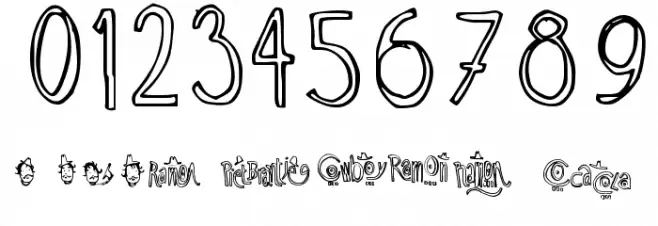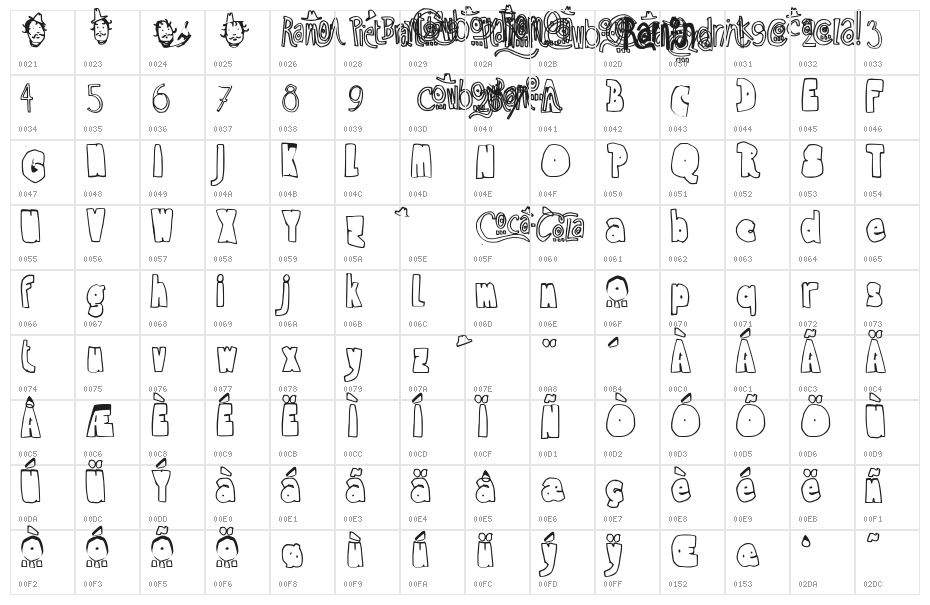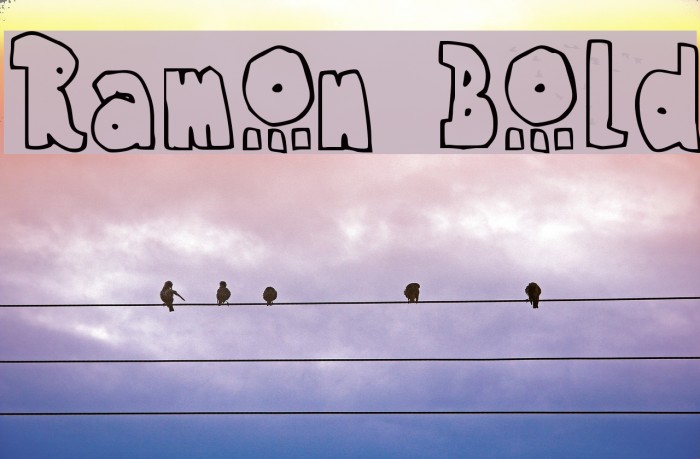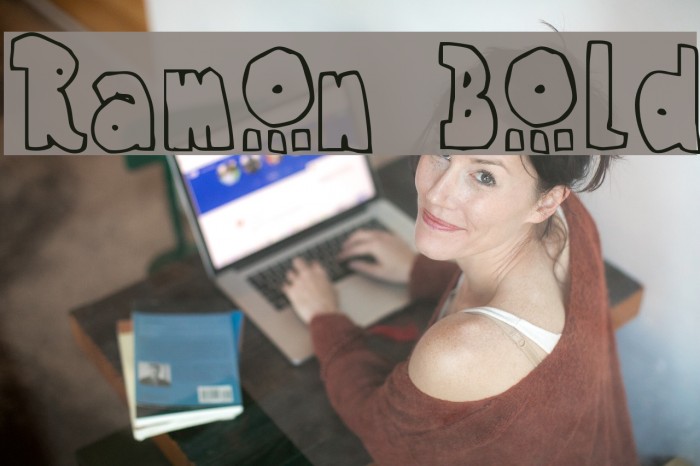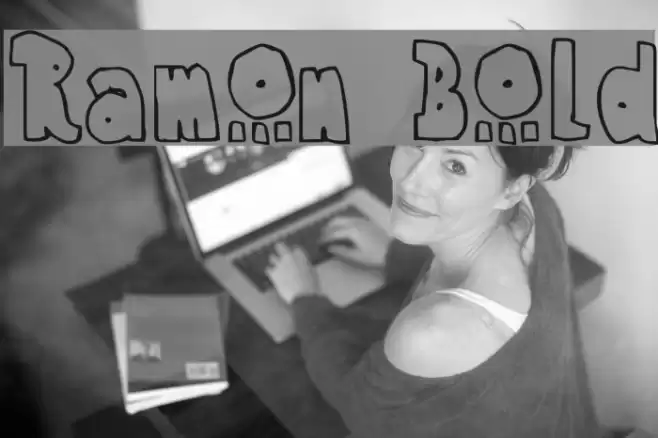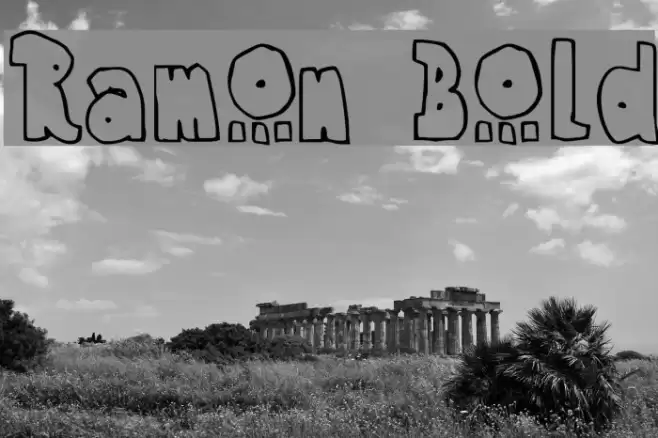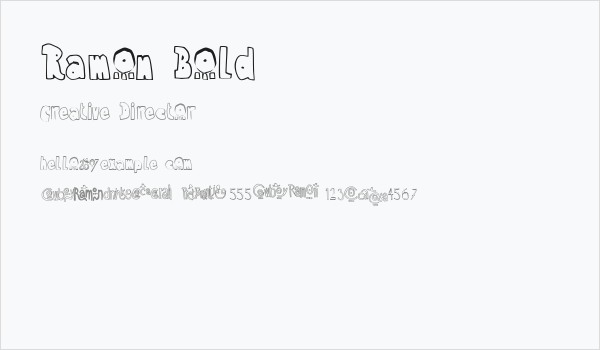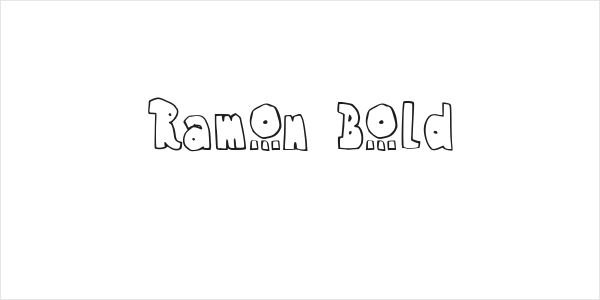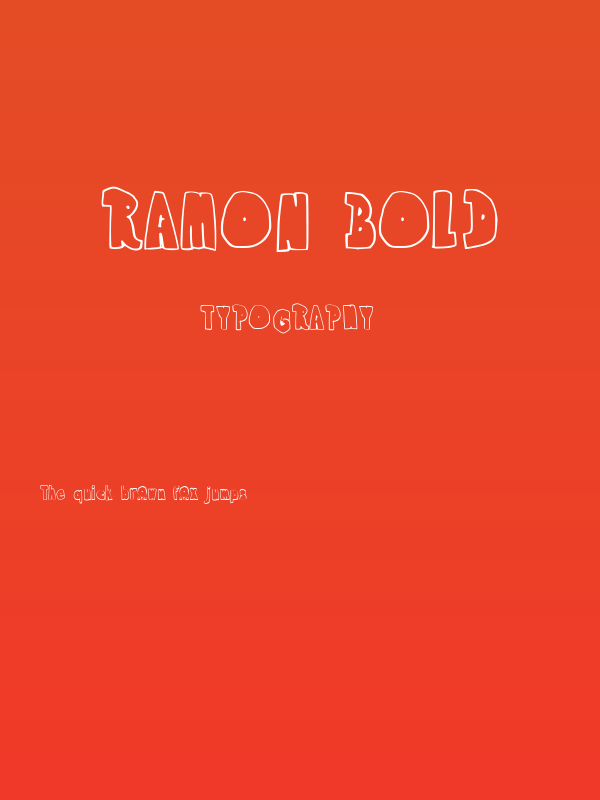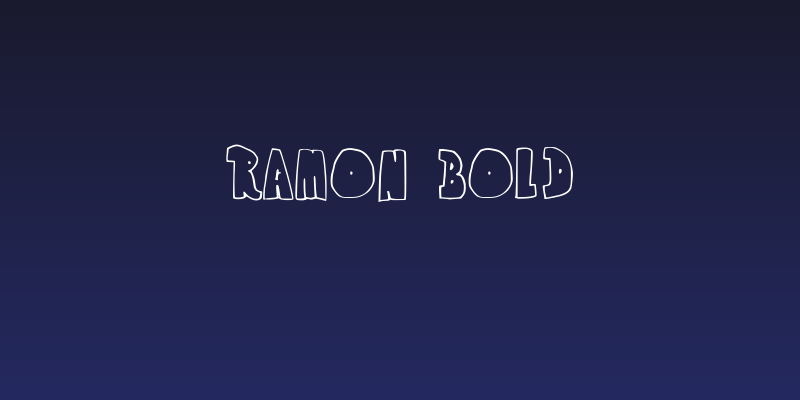
Ramon Bold Font
Ramon Bold Description
This font features a playful and bold design with a hand-drawn aesthetic. The characters are outlined with a thick, uneven stroke, giving them a casual and whimsical appearance. The uppercase and lowercase letters maintain a consistent style, with exaggerated curves and irregular shapes that add to the font's charm. The numbers and special characters follow the same playful theme, making the font suitable for creative and informal projects. Its unique style is eye-catching and can be used to convey a sense of fun and creativity.
| Proposed Projects | Ideal for children's books, comic strips, playful branding, and creative posters. |